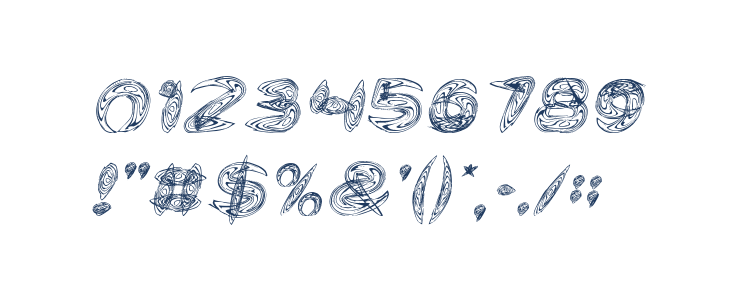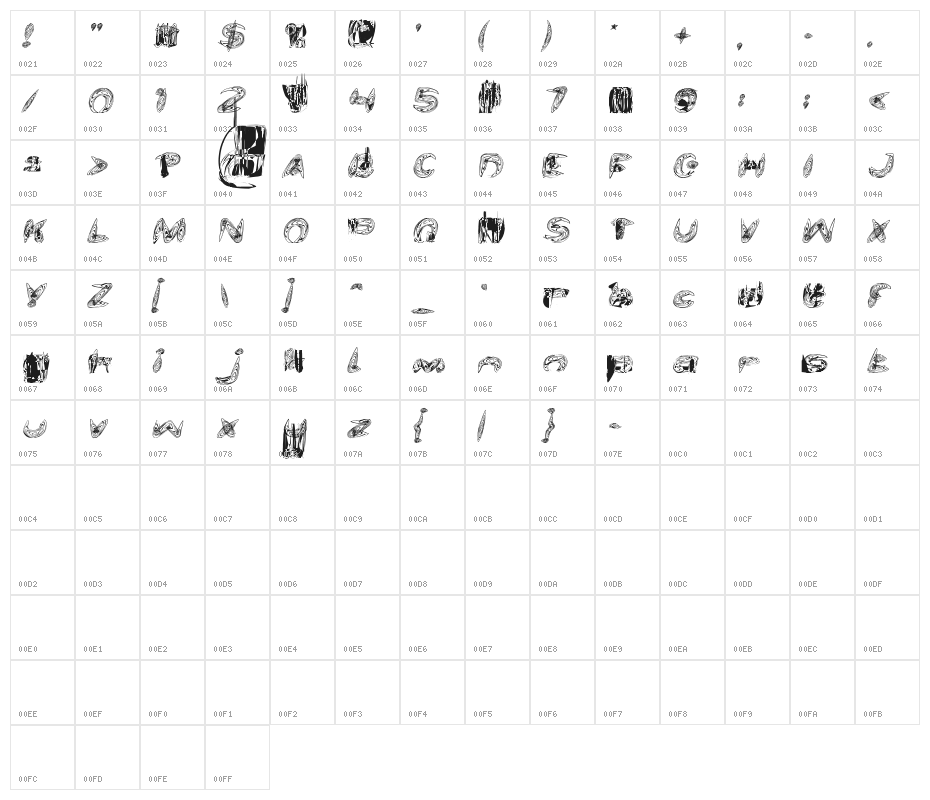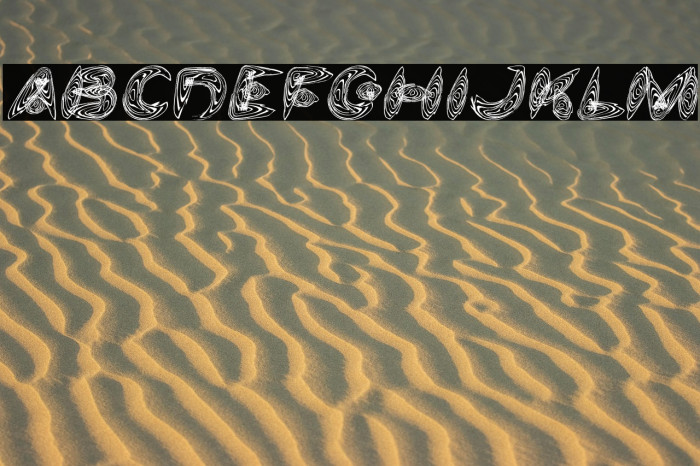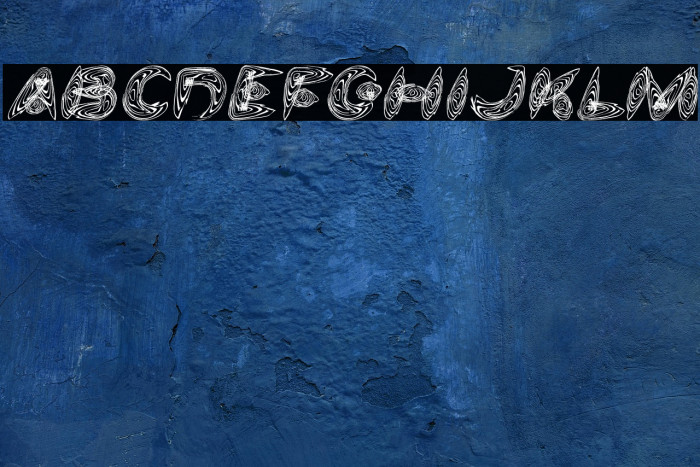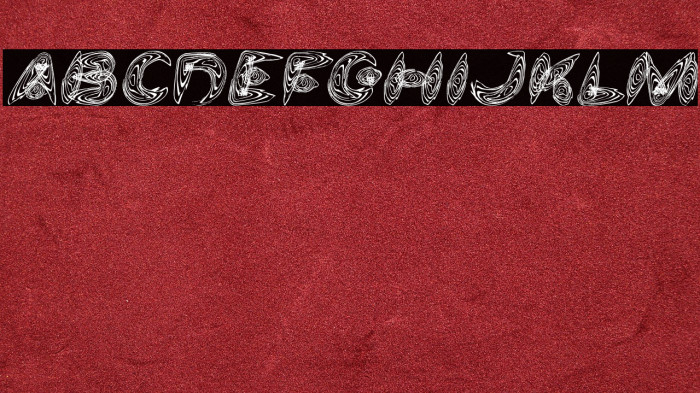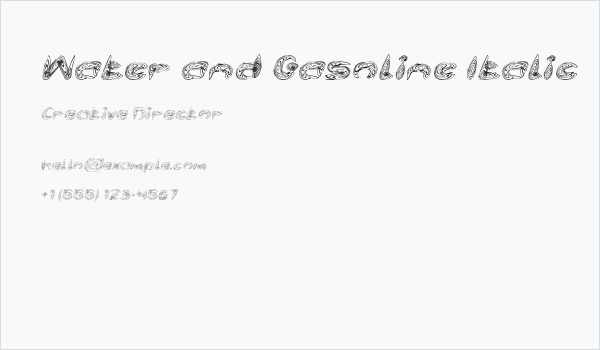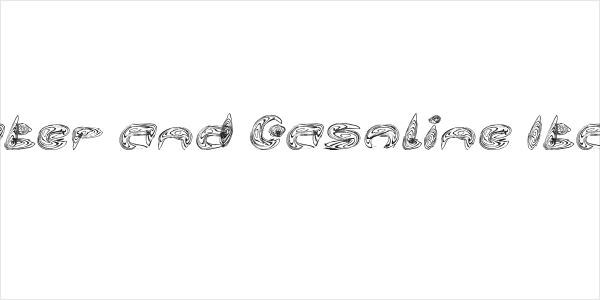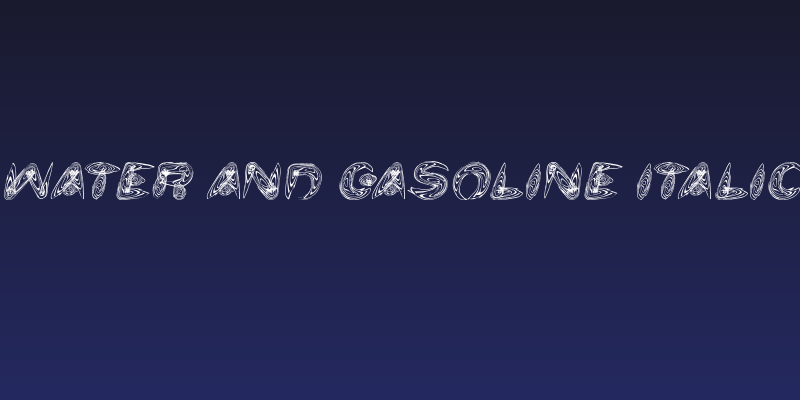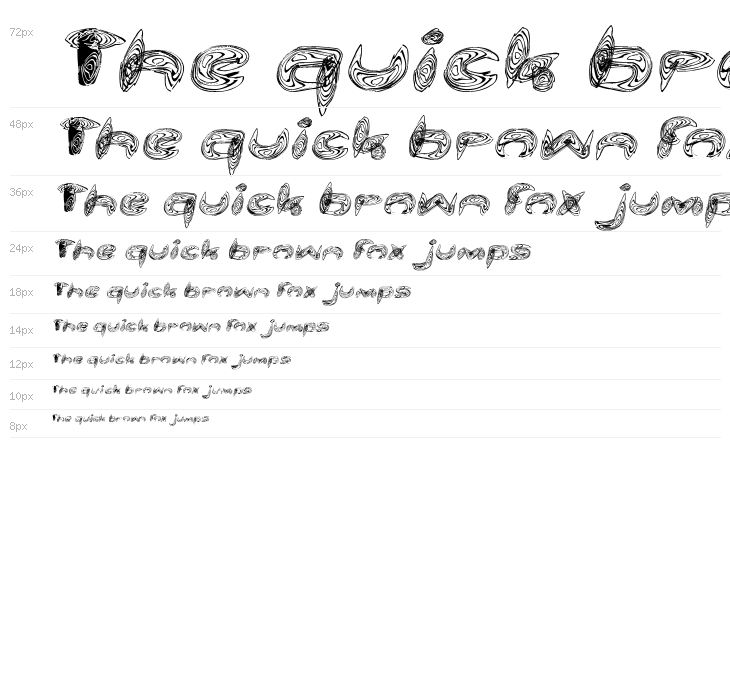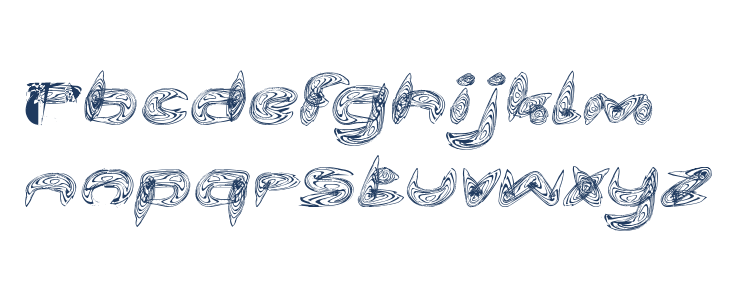
Water and Gasoline Italic Font
Water and Gasoline Italic Description
This font features a highly decorative and artistic style, characterized by swirling, fluid lines that create a sense of motion and energy. The letters appear as if they are formed from liquid or smoke, with intricate details and a dynamic flow. The uppercase and lowercase letters maintain a consistent style, with each character uniquely crafted to enhance the overall aesthetic. Numbers and special characters follow the same design principles, making them visually cohesive with the alphabet. The font's unique appearance makes it stand out, suitable for creative and unconventional projects.